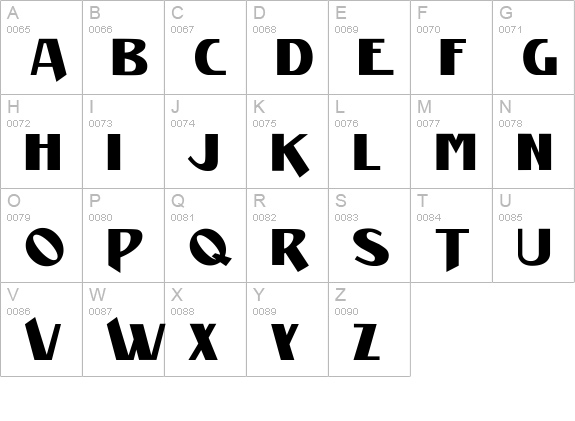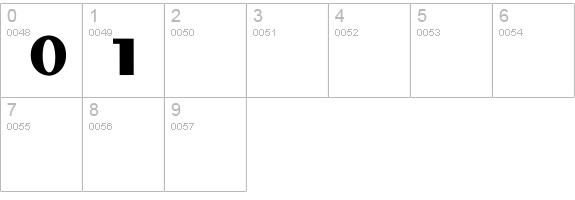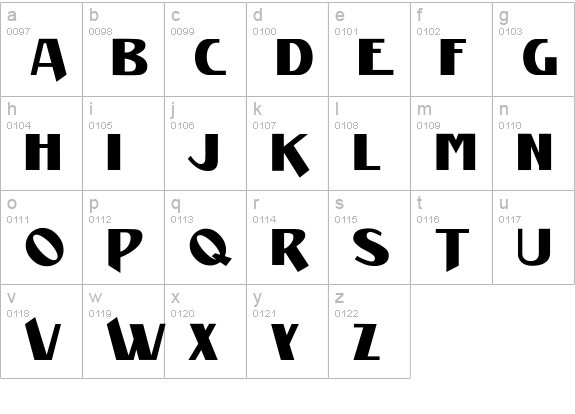
Manifest Font Details
Manifest font is a beautiful and versatile typeface that truly embodies the spirit of creativity and individuality. With its unique and distinct design, Manifest is sure to make a lasting impression in any design project. This font offers a perfect balance between elegance and modernity, making it suitable for a wide range of applications, from branding and advertising to editorial and packaging design. One of the best things about Manifest font is that it is completely free to download. That's right, this stunning font can be yours without spending a single penny. You can easily get your hands on Manifest font by visiting FontsMarket.com, a trusted source for high-quality fonts. FontsMarket.com provides a vast collection of free fonts, including Manifest, allowing you to explore and experiment with different typefaces to find the perfect match for your creative endeavors. Manifest font is a true gem for designers and typographers alike. Its clean and crisp lines, combined with its subtle yet impactful details, create a visual harmony that is both captivating and memorable. Whether you're designing a logo for a new business, creating eye-catching headlines for a magazine, or adding a touch of sophistication to your personal projects, Manifest font is the ideal choice. Not only does Manifest font offer exceptional aesthetics, but it also boasts excellent legibility, ensuring that your message is conveyed with clarity and ease. Its well-crafted letterforms and thoughtful spacing make reading a pleasure, whether in print or on digital platforms. With Manifest font, you have the freedom to unleash your creativity and bring your ideas to life. This versatile font can adapt to various design styles and contexts, allowing you to create unique and impactful visuals that stand out from the crowd. Its extensive character set includes a range of accents and special characters, making it suitable for multilingual projects as well. So why wait? Don't miss out on the opportunity to enhance your designs with the captivating beauty of Manifest font. Head over to FontsMarket.com today and download this incredible typeface for free. Give your projects the professional touch they deserve, and let Manifest font be the catalyst for your creative success.